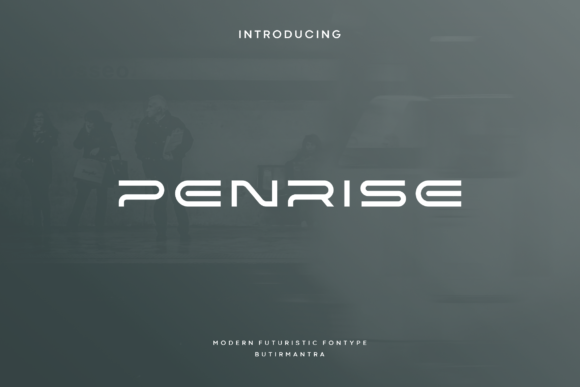
Introducing Penrise Font: The Ultimate Display Font for Modern Designs
In the world of typography, fonts play a crucial role in conveying messages, expressing emotions, and creating visual identities. For designers, finding the perfect font that combines style, elegance, and versatility can be a daunting task. However, if you’re looking for a font that checks all these boxes, look no further than Penrise Font. In this article, we’ll delve into the world of Penrise Font, exploring its features, benefits, and uses, and why it’s becoming a favorite among designers.
What is Penrise Font?
Penrise Font is a cool and neat display font designed specifically for headlines, branding, and logo designs. Its simple yet modern and elegant look makes it an excellent choice for designers seeking to create visually stunning text-based designs. The font’s smooth angular shape gives it a classy appearance, perfect for creating high-end visuals that exude sophistication and refinement.
Key Features of Penrise Font
- Modern and Elegant Design: Penrise Font boasts a sleek and contemporary design that instantly elevates any text-based design.
- Smooth Angular Shape: The font’s smooth angular shape gives it a classy and sophisticated appearance.
- Versatile: Penrise Font is perfect for a wide range of design applications, including headlines, branding, logo designs, and more.
- Easy to Read: Despite its elegant design, Penrise Font remains highly legible, making it suitable for use in various contexts.
Using Penrise Font in Your Designs
Penrise Font’s versatility makes it an excellent choice for various design projects. Here are some examples of how you can use Penrise Font in your designs:
- Headlines and Titles: Use Penrise Font to create eye-catching headlines and titles that instantly grab attention.
- Branding and Logos: Penrise Font is perfect for creating professional-looking logos and branding materials that exude elegance and sophistication.
- Advertising and Marketing Materials: Use Penrise Font to create visually stunning advertising and marketing materials, such as brochures, flyers, and posters.
- Digital Media: Penrise Font can also be used in digital media, including social media graphics, website headers, and more.
Benefits of Using Penrise Font
So, why should you choose Penrise Font for your design projects? Here are some benefits of using Penrise Font:
- Unique and Distinctive: Penrise Font’s elegant design sets it apart from other fonts, making it an excellent choice for designers seeking to create unique and distinctive visuals.
- Time-Saving: With Penrise Font, you can create professional-looking designs in no time, saving you valuable time and effort.
- Highly Legible: Penrise Font’s clear and elegant design ensures that your text remains highly legible, even at small font sizes.
Tips and Tricks for Using Penrise Font
To get the most out of Penrise Font, here are some tips and tricks to keep in mind:
- Experiment with Font Sizes: Don’t be afraid to experiment with different font sizes to find the perfect balance between style and legibility.
- Pair with Other Fonts: Penrise Font pairs well with other fonts, so feel free to experiment with different font combinations to create visually stunning designs.
- Use in Combination with Images: Penrise Font looks great when used in combination with images, so consider using it to add text overlays to your images.
- Pay Attention to Line Spacing: Make sure to adjust line spacing to ensure that your text remains highly legible and easy to read.
In conclusion, Penrise Font is an excellent choice for designers seeking to create modern, elegant, and visually stunning text-based designs. Its smooth angular shape, versatility, and high legibility make it perfect for a wide range of design applications, from headlines and branding to logo designs and more. With its unique and distinctive design, Penrise Font is sure to elevate your designs and help you stand out in a crowded design landscape.